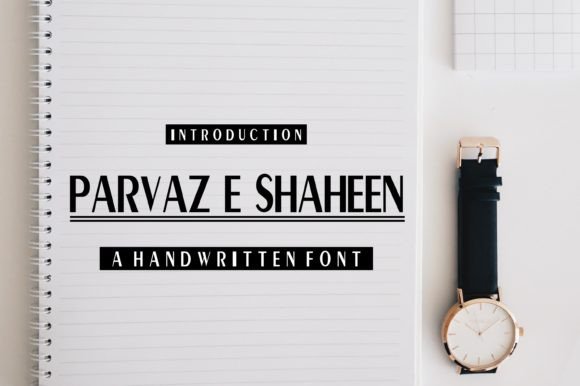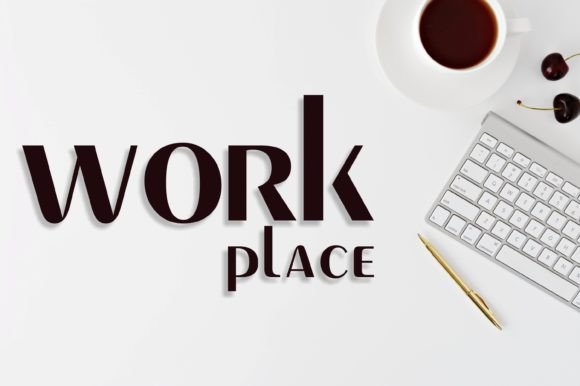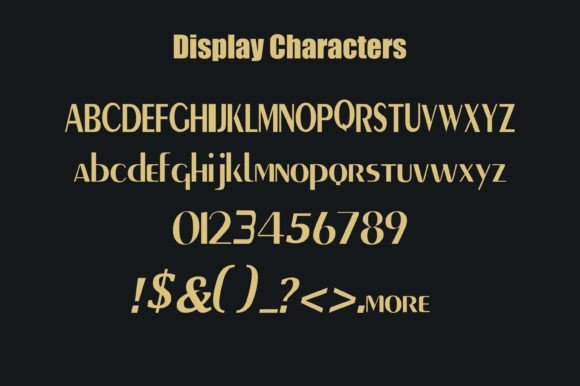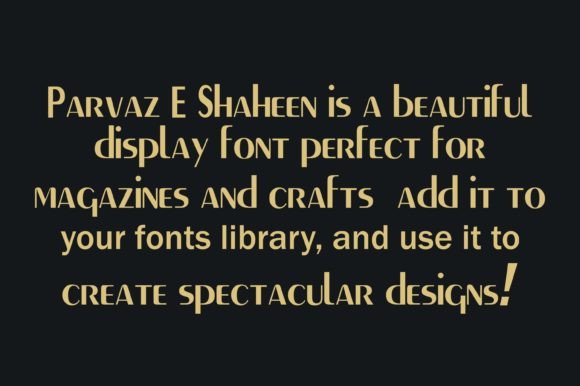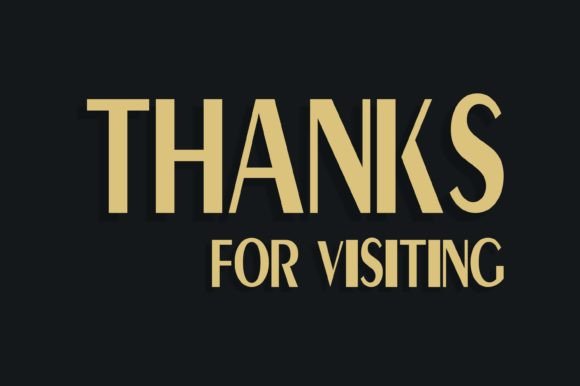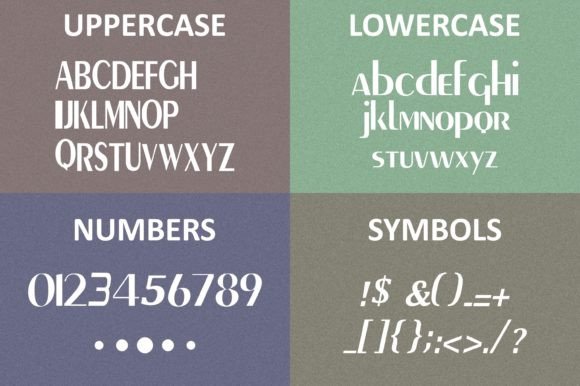
Introduction to Parvaz E Shaheen Font
Remember that moment when you’re working on a creative project, and the perfect font just slips away from you? You’ve spent hours searching for the perfect design resource, only to end up with a font that just doesn’t quite fit the bill. But what if I told you that there’s a beautiful display font out there that’s just waiting to elevate your designs to the next level?
Enter the stunning Parvaz E Shaheen Font, a high-quality font that’s perfect for magazines, crafts, and any other creative project you can think of. With its elegant and sophisticated design, this font is sure to add a touch of class to any design. And the best part? It’s available for free download, making it a valuable asset for designers of all levels.
Key Features of Parvaz E Shaheen Font
- High-quality, elegant design perfect for creative projects and design resources.
- Features a unique, intricate design that sets it apart from other fonts in its class.
- Supports a wide range of languages, making it a versatile choice for international design projects.
- Perfect for use in logos, branding materials, and other creative projects where a unique, elegant font is required.
Honest Review: Parvaz E Shaheen Font
I recently stumbled upon the Parvaz E Shaheen Font, and I’m excited to share my thoughts on this design resource. As a designer, I always appreciate high-quality fonts that can elevate my creative projects.
- ✨ Unique and elegant design: The Parvaz E Shaheen Font boasts a distinctive and sophisticated look that sets it apart from other fonts.
- ⚠️ Limited font styles: The font only comes in a few styles, which might limit its versatility in certain projects.
- ⚠️ Not suitable for small text: The font is best suited for larger text sizes, as the intricate details might get lost at smaller sizes.
Overall, I’m impressed with the Parvaz E Shaheen Font’s unique design and free availability. While it has some limitations, it’s a great addition to any designer’s toolkit, especially for creative projects that require a touch of elegance.
Parvaz E Shaheen Font
Tips for Getting the Most Out of Parvaz E Shaheen Font
Experiment with different font sizes, styles, and colors to achieve the desired look for your creative project. Use the font in combination with other design elements to create a visually appealing design.
The Parvaz E Shaheen Font is suitable for various creative projects, including logos, brochures, posters, and business cards. Its unique design makes it an excellent choice for projects that require a touch of elegance and sophistication.
Q: Is Parvaz E Shaheen Font suitable for use in high-resolution designs?
Yes, Parvaz E Shaheen Font is designed to be highly legible and clear, even at high resolutions. The font’s high-quality design ensures that it remains crisp and sharp, making it ideal for use in high-resolution designs, such as those intended for print or digital display on high-resolution screens.